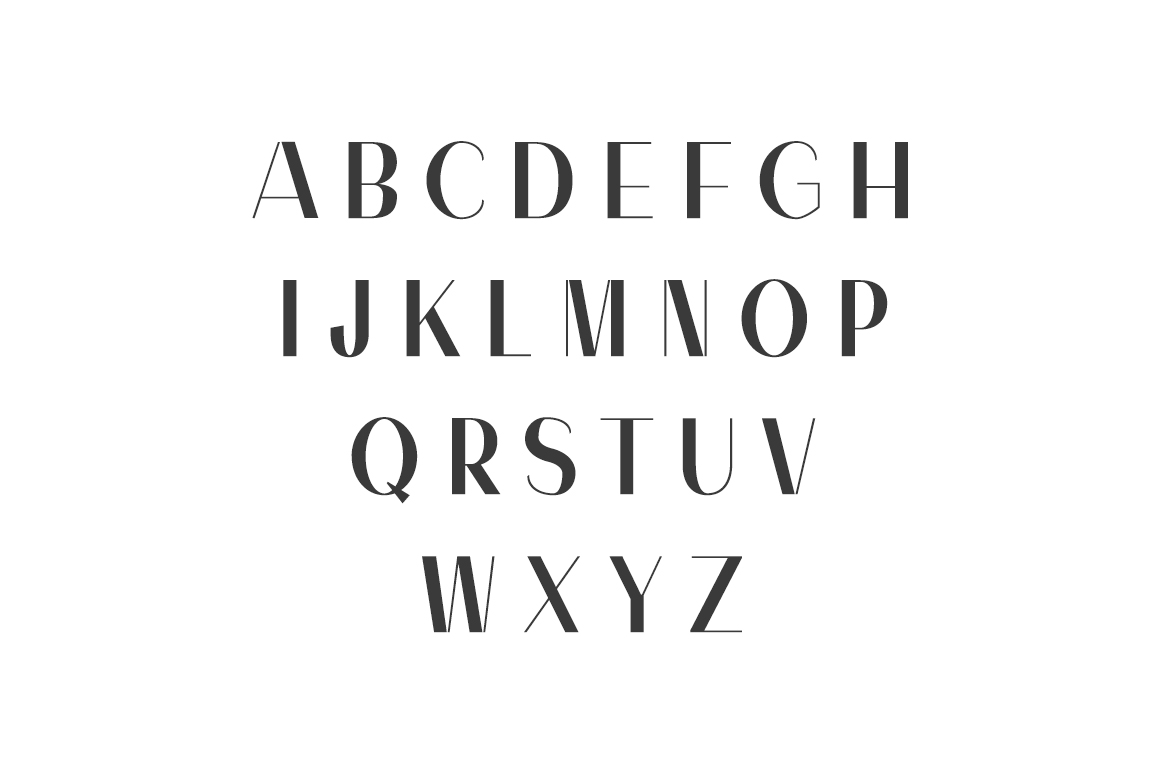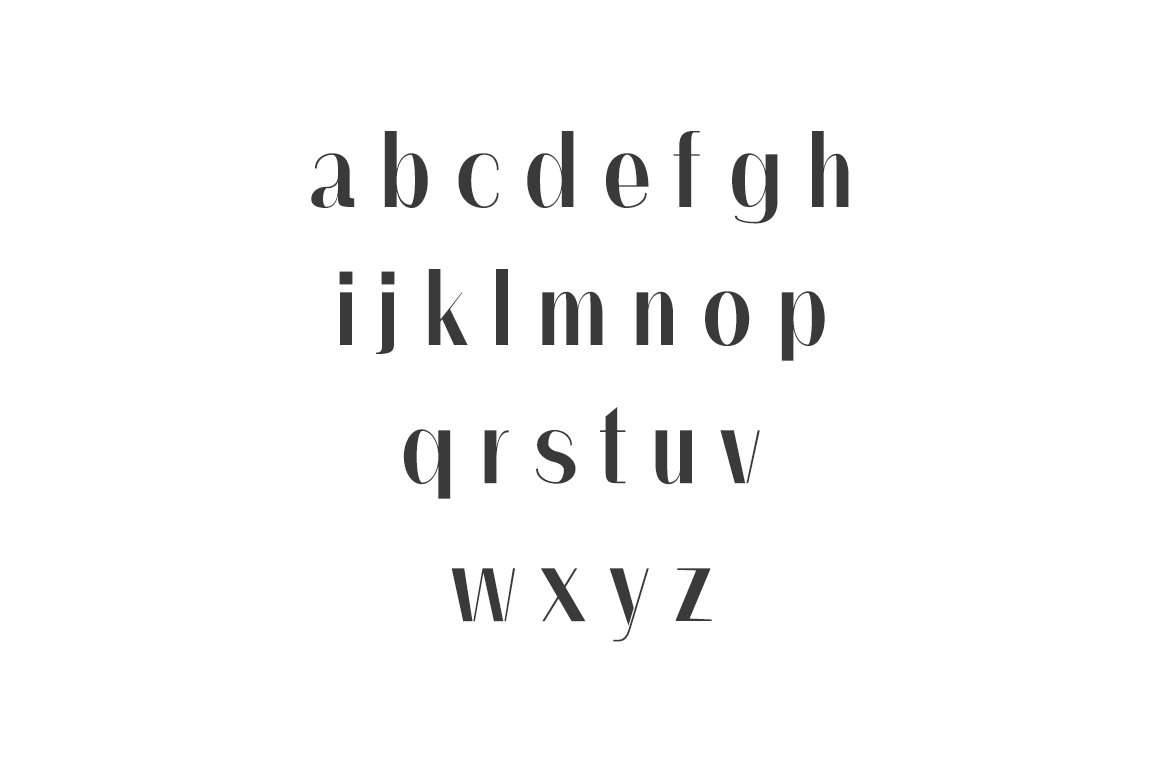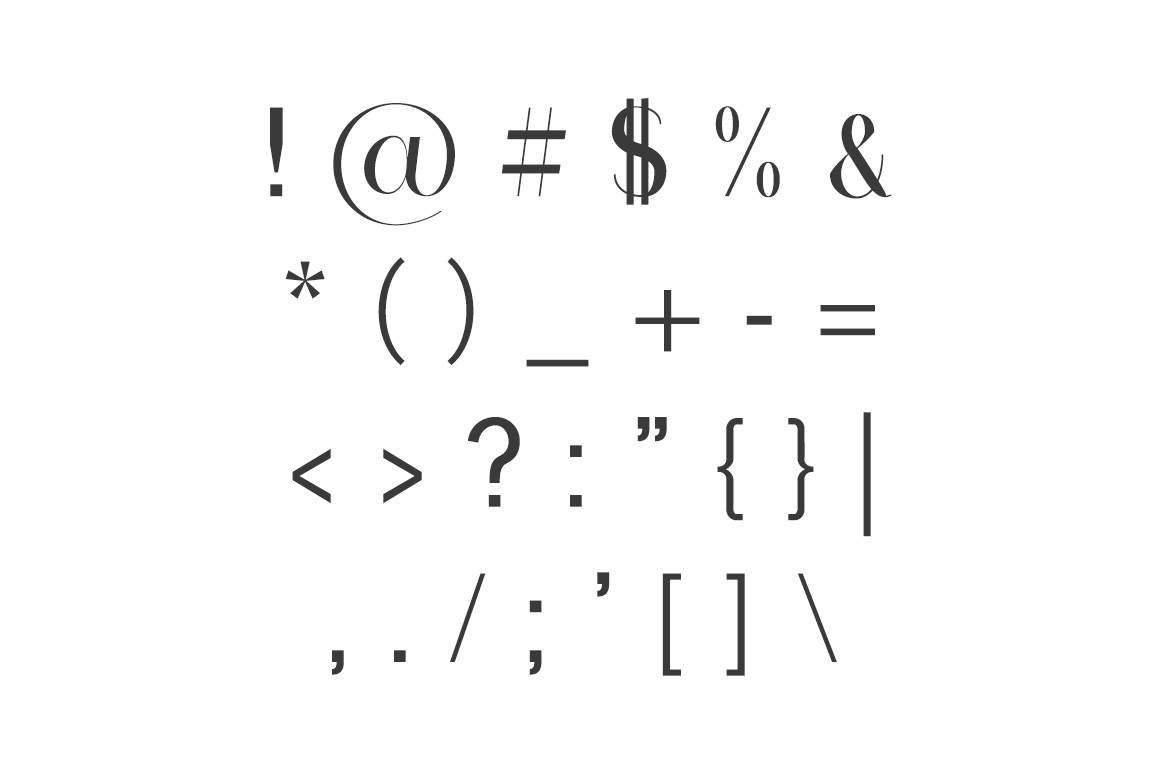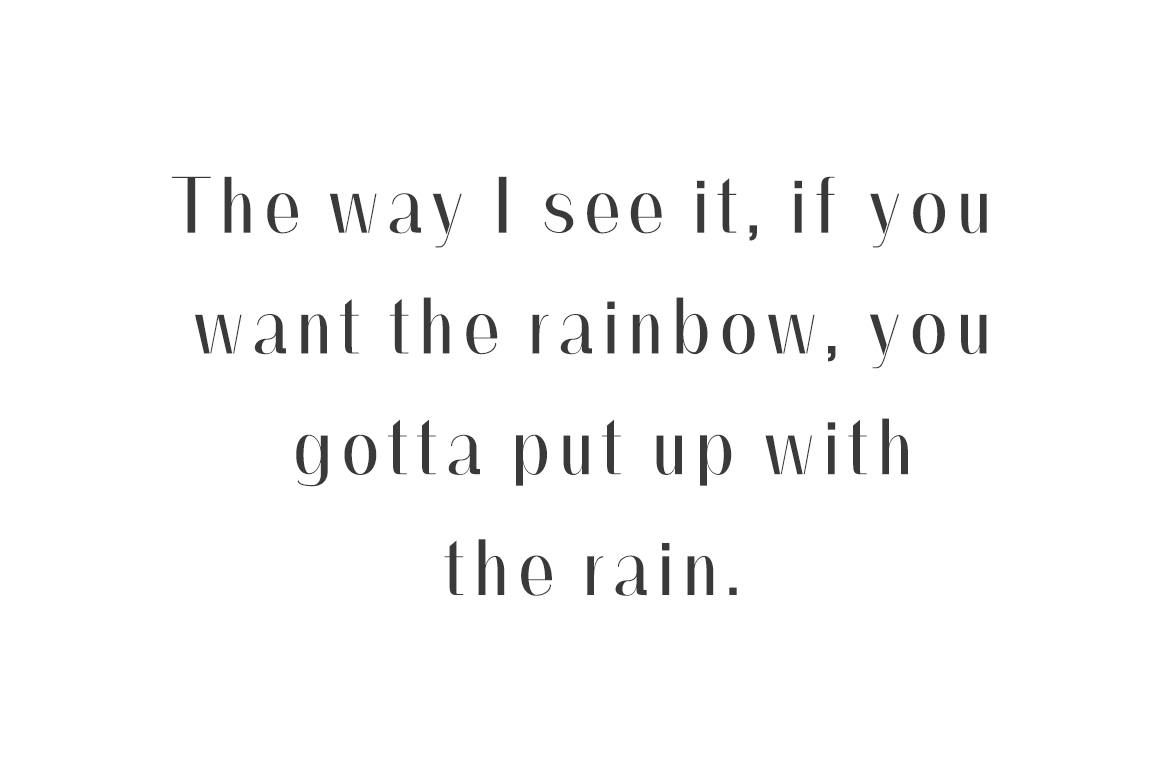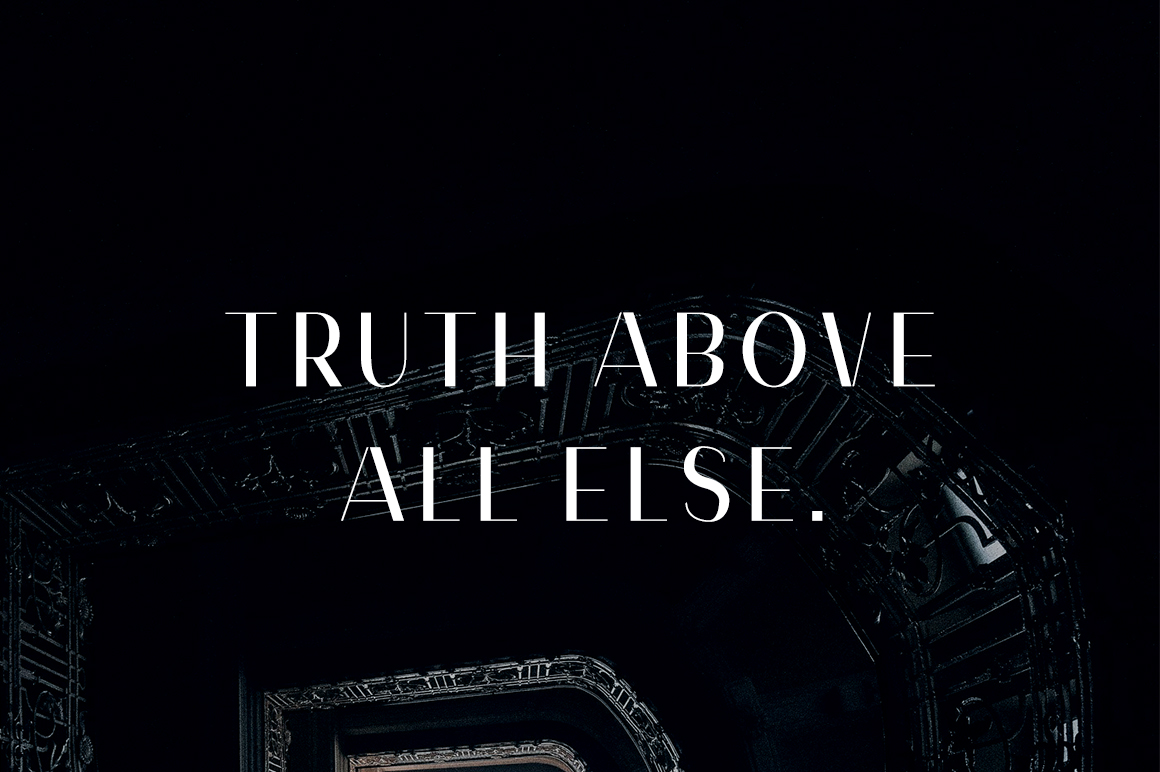
Discover the Elegance of Alodie Font: Elevate Your Designs with Modern Sophistication
In the world of typography, the right font can make all the difference in transforming a design from ordinary to extraordinary. For designers and crafters seeking a modern and beautiful sans serif font that exudes elegance and sophistication, look no further than Alodie. This phenomenal font is designed to enhance any chosen project with its high contrast and clean lines, seamlessly combining editorial appeal and classic design.
The Characteristics of Alodie Font
Alodie is a sans serif font that boasts a unique blend of modernity and timelessness. Its high contrast design gives it a distinctive look that can add a touch of elegance to any project. The clean lines and curves of Alodie make it perfect for a wide range of applications, from editorial design to digital media. Whether you’re working on a luxury brand’s logo, a fashion magazine, or a craft project, Alodie is sure to make a statement.
Why Choose Alodie Font?
So, what sets Alodie apart from other sans serif fonts? Here are just a few reasons why designers and crafters are falling in love with this beautiful font:
- Modern and Beautiful: Alodie is a font that effortlessly blends modern design principles with classic elegance. Its unique look and feel make it perfect for designers who want to create something fresh and exciting.
- High Contrast: The high contrast design of Alodie gives it a distinctive look that can add depth and interest to any project.
- Clean and Elegant: The clean lines and curves of Alodie make it perfect for editorial design, digital media, and craft projects.
- Versatile: Alodie is a versatile font that can be used for a wide range of applications, from logos and branding to magazines and digital media.
How to Use Alodie Font in Your Designs
Alodie is an incredibly versatile font that can be used in a variety of design applications. Here are a few ideas to get you started:
- Logo Design: Use Alodie to create a modern and elegant logo for your brand or business.
- Editorial Design: Alodie is perfect for use in magazines, newspapers, and other editorial projects.
- Digital Media: Use Alodie in your digital media projects, such as social media graphics, website headers, and more.
- Craft Projects: Alodie is also perfect for use in craft projects, such as card making, scrapbooking, and more.
In conclusion, Alodie is a phenomenal sans serif font that is sure to elevate any design project. Its modern and beautiful design, high contrast, and clean lines make it perfect for a wide range of applications. Whether you’re a designer or crafter, Alodie is a must-have font that is sure to become a favorite in your collection. So why wait? Discover the elegance of Alodie font today and take your designs to the next level.